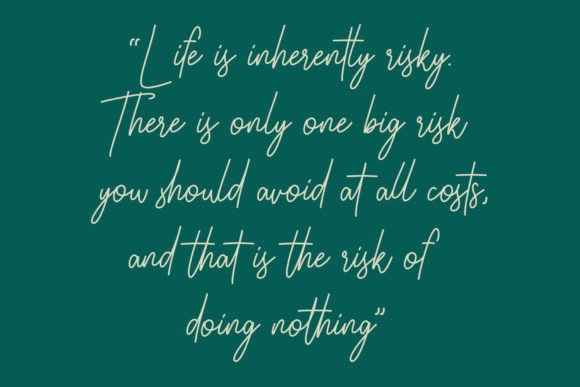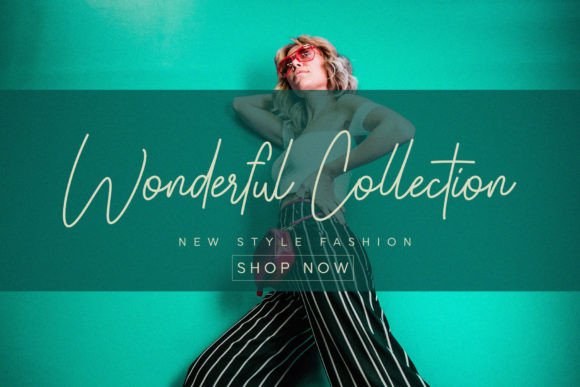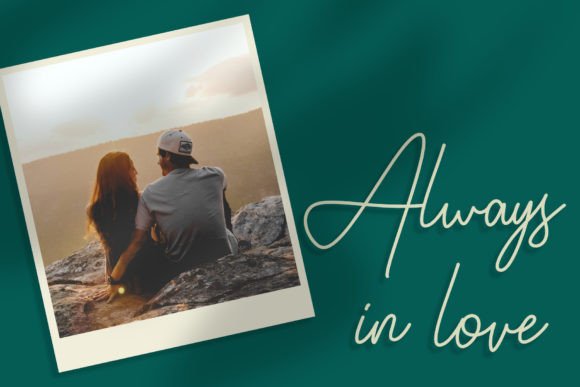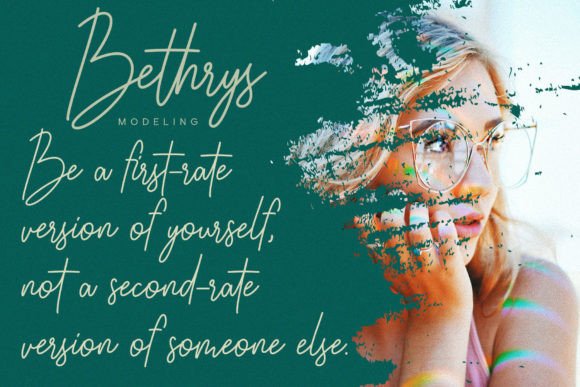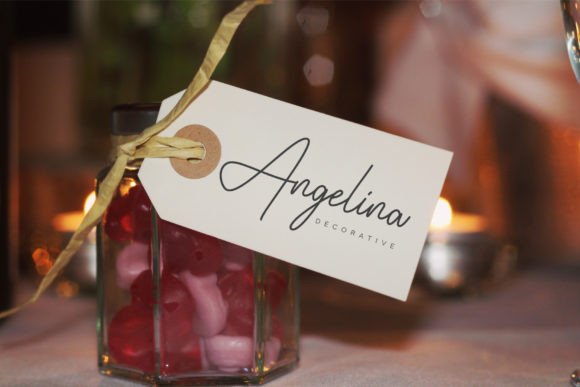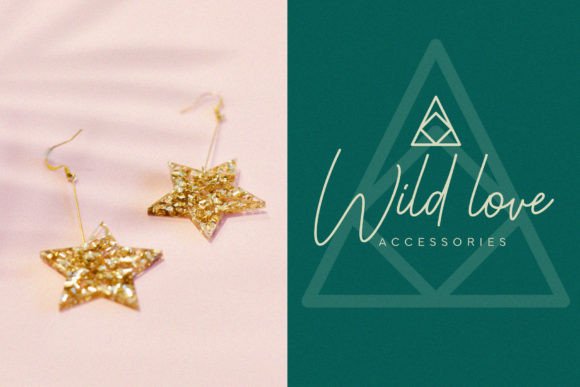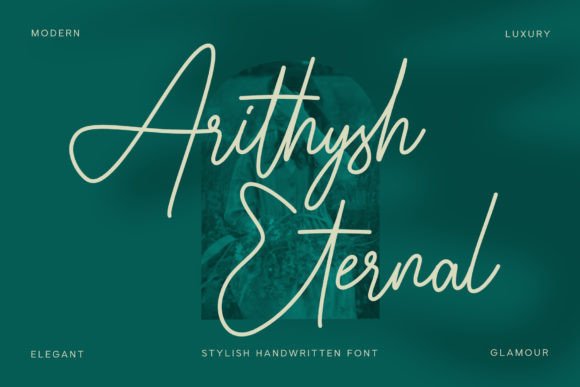
Introducing Arithysh Eternal Font: Elevate Your Designs with Elegance
Are you on the hunt for a font that exudes sophistication, elegance, and a touch of modern flair? Look no further than the Arithysh Eternal Font. This stunning handwritten font is meticulously crafted to capture the essence of classy calligraphy while infusing it with a contemporary twist. Whether you’re a designer, crafter, or simply someone who appreciates the art of typography, Arithysh Eternal is poised to become your new favorite.
The Perfect Blend of Classic and Modern
Arithysh Eternal Font strikes the perfect balance between traditional calligraphic influences and modern sensibilities. Its exquisite design ensures that it can be used across a wide range of projects, from wedding invitations and branding materials to digital content and craft projects. The font’s unique charm lies in its ability to convey elegance and sophistication without ever feeling outdated or overly ornate.
One of the standout features of Arithysh Eternal Font is its PUA (Private Use Area) encoding. This means that accessing the font’s extensive range of glyphs and swashes is incredibly straightforward. Designers and crafters can easily incorporate these elements into their work, allowing for greater creativity and flexibility. Whether you’re looking to add a personal touch to your projects or simply want to experiment with different styles, PUA encoding makes it easy to do so.
With Arithysh Eternal Font, the design possibilities are virtually endless. Here are just a few ways you can use this versatile font:
- Wedding and Event Planning: Create beautiful invitations, save-the-dates, and event signage that sets the tone for a sophisticated and memorable occasion.
- Branding and Packaging: Elevate your brand with elegant and distinctive typography that captures the essence of your business.
- Digital Content: Enhance your blog posts, social media graphics, and website with a touch of class and sophistication.
- Crafting and DIY Projects: Add a personal touch to your handmade crafts, such as journals, planners, and gift tags.
Why Choose Arithysh Eternal Font?
There are many fonts available that claim to offer elegance and sophistication, but Arithysh Eternal stands out from the crowd. Here are just a few reasons why:
- Unique Design: Arithysh Eternal boasts a distinctive design that is both classy and contemporary.
- Highly Versatile: The font can be used across a wide range of projects, making it a valuable addition to any designer’s toolkit.
- Easy to Use: With PUA encoding, accessing the font’s glyphs and swashes is incredibly straightforward.
- Exceptional Quality: The font is meticulously crafted to ensure that it meets the highest standards of quality and design.
If you’re looking for a font that will elevate your designs and add a touch of elegance and sophistication, look no further than Arithysh Eternal Font. Its unique blend of classic calligraphic influences and modern flair makes it the perfect choice for designers, crafters, and anyone who appreciates the art of typography. With its PUA encoding and highly versatile design, Arithysh Eternal is poised to become a true favorite in your font collection.